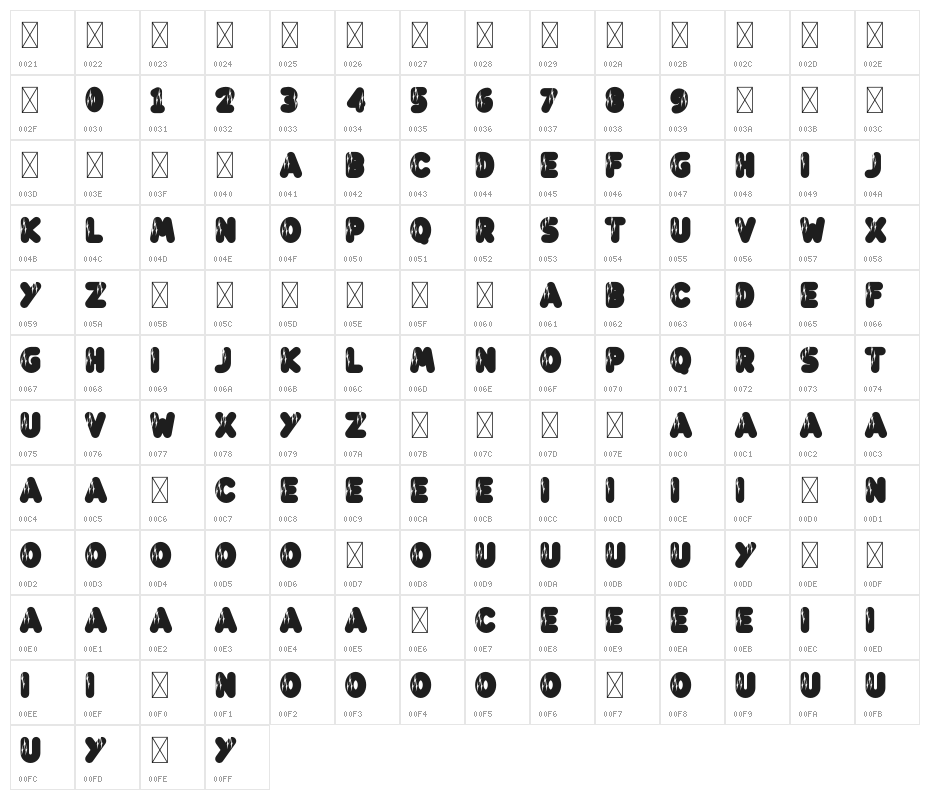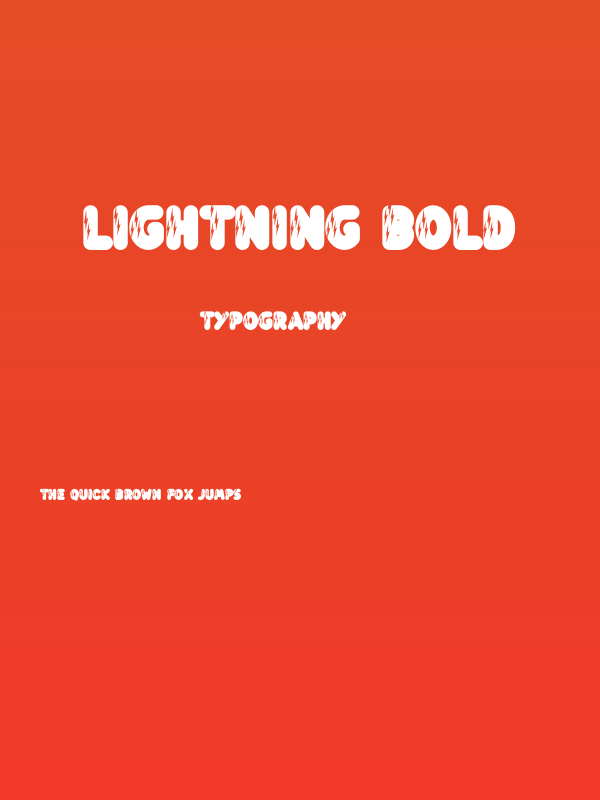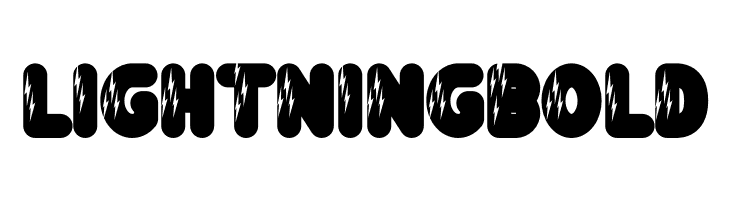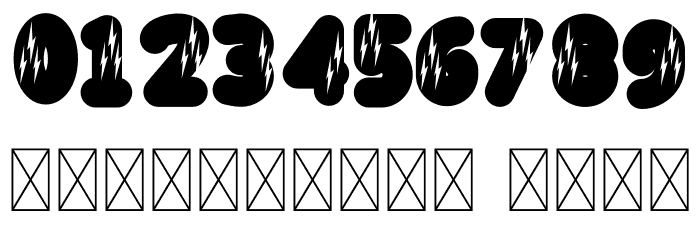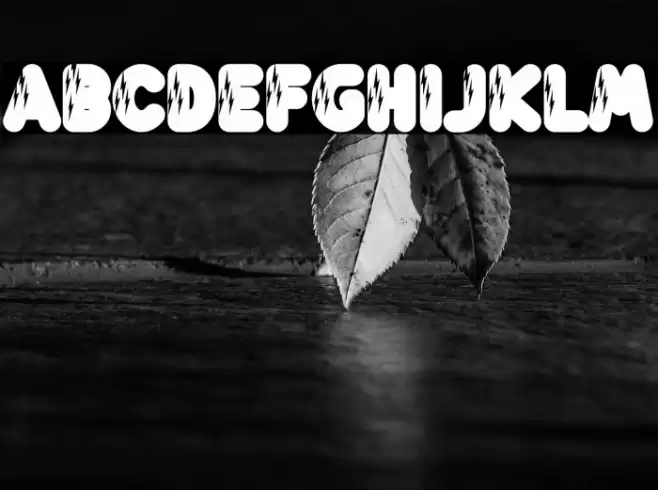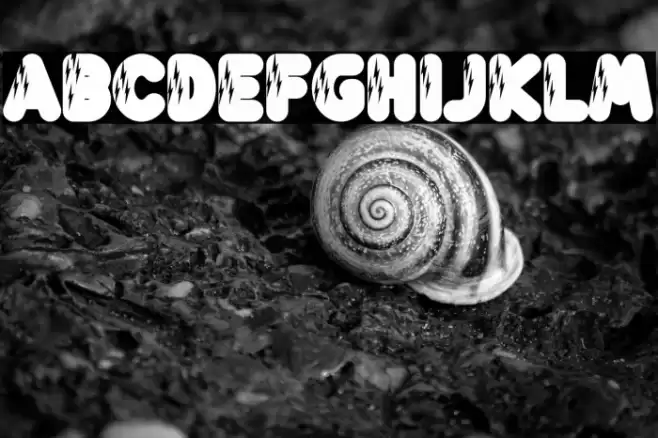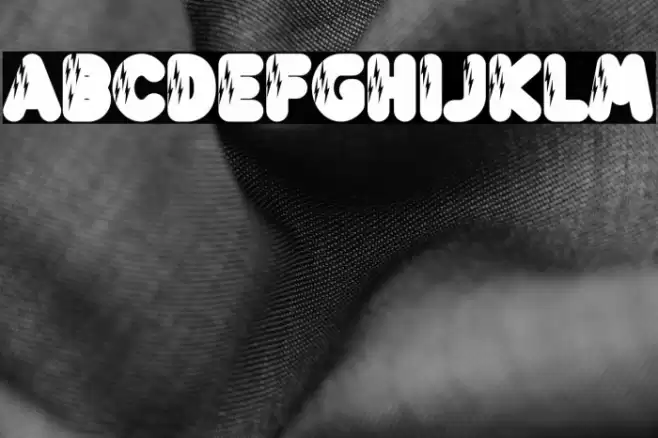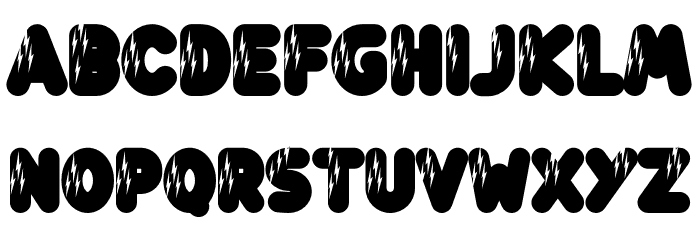
Lightning Bold Font
| 全体的なスタイル | Modern, Decorative |
| おすすめプロジェクト | Ideal for posters, logos, event flyers, and any project needing a bold, energetic aesthetic. |